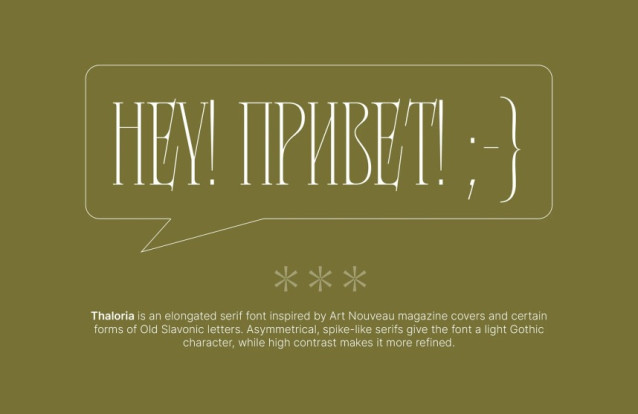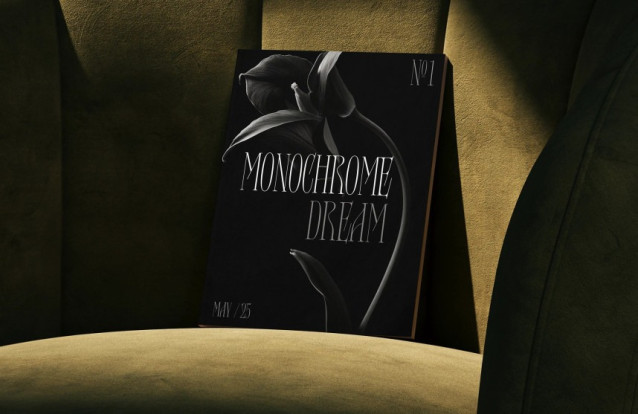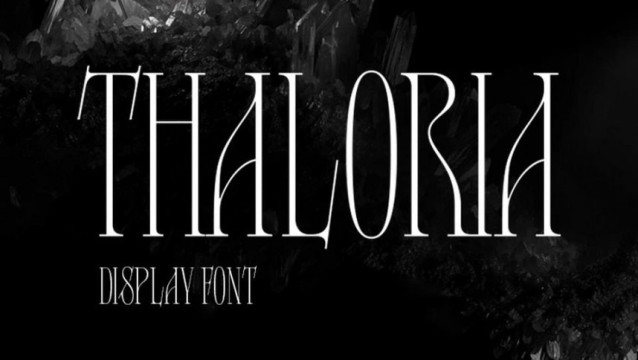
Thaloria Font
Thaloria Font is an elongated serif font inspired by Art Nouveau magazine covers and certain forms of Old Slavonic letters. Asymmetrical, spike-like serifs give the font a light Gothic character, while high contrast makes it more refined.
Thaloria is not just a font – it is a visual accent that instantly attracts the eye and sets the mood. It is ideal for projects where an atmosphere of sophistication, historical allusion, or artistic audacity is important.
The font is perfect for large headlines and is also suitable for posters, book covers, music albums, and other similar media.